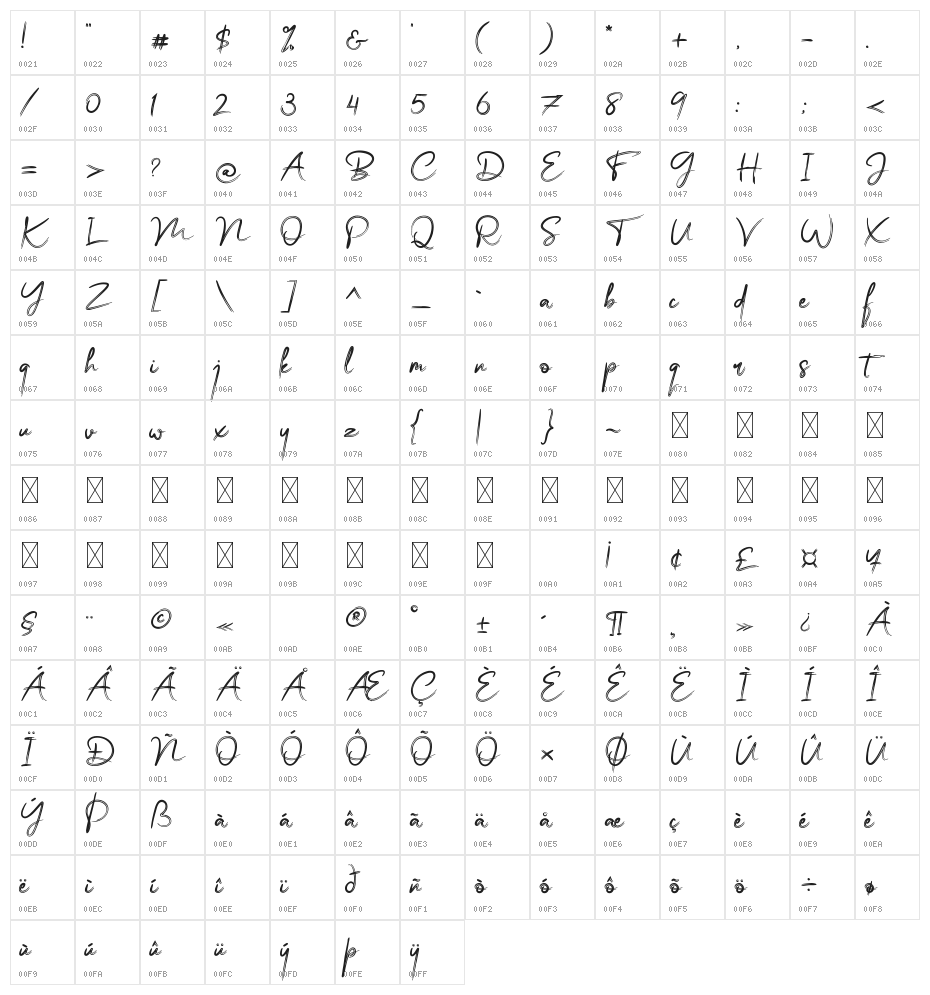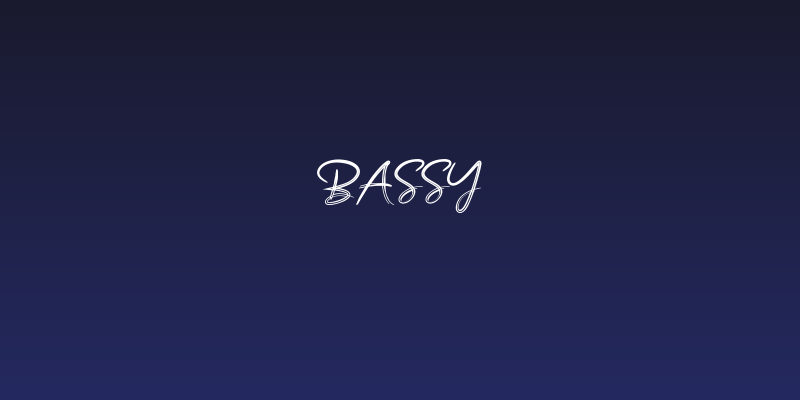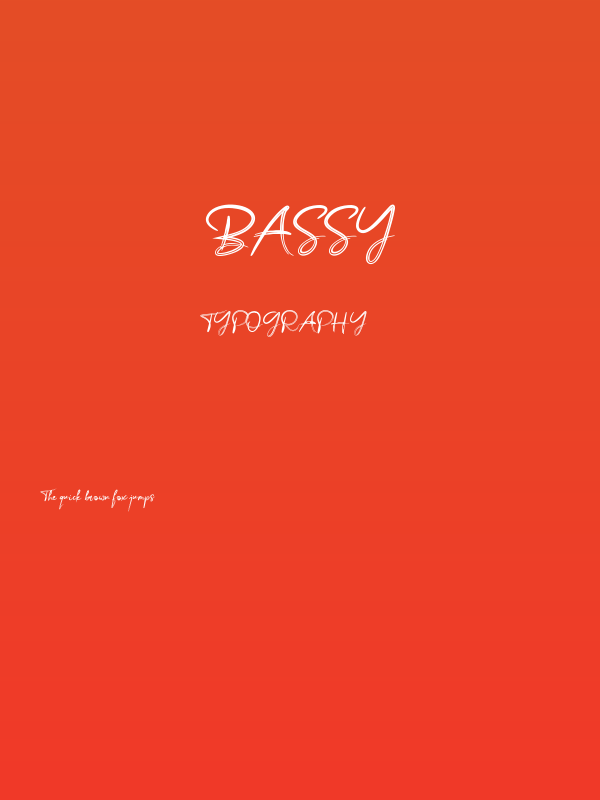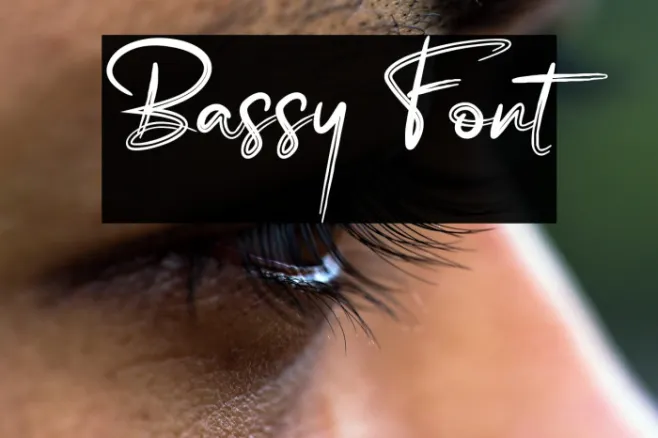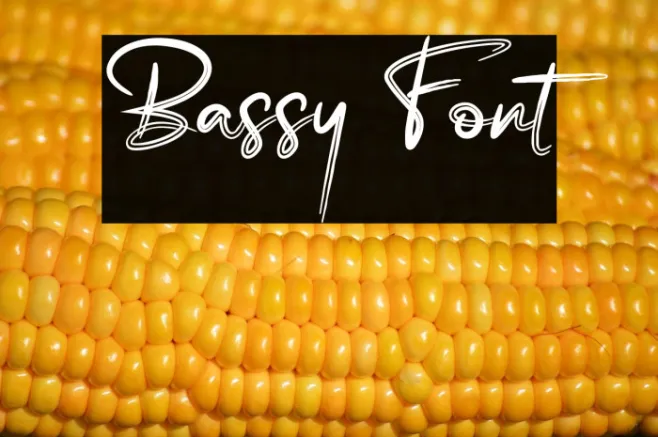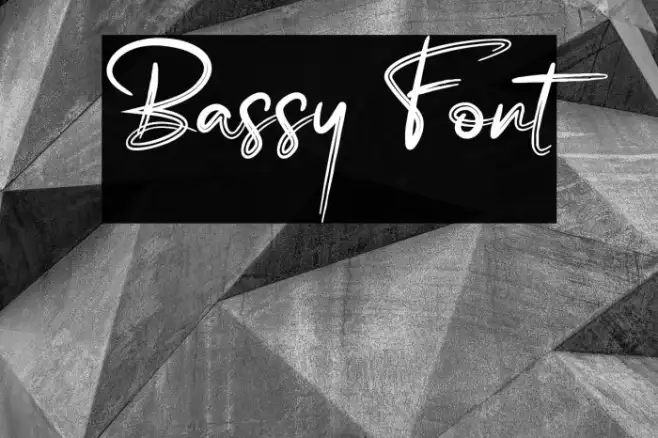
Bassy Font
Bassy Description
This font features a dynamic and expressive style, characterized by its flowing, cursive letterforms that convey a sense of movement and elegance. The uppercase letters are bold and sweeping, with distinctive loops and flourishes that add a touch of sophistication. The lowercase letters maintain a consistent fluidity, with some characters extending below the baseline, enhancing the font's artistic appeal. The numerals are equally stylish, with a playful yet refined appearance. Special characters are crafted with the same attention to detail, ensuring a cohesive look across all glyphs. This font's unique style makes it suitable for creative and artistic projects.